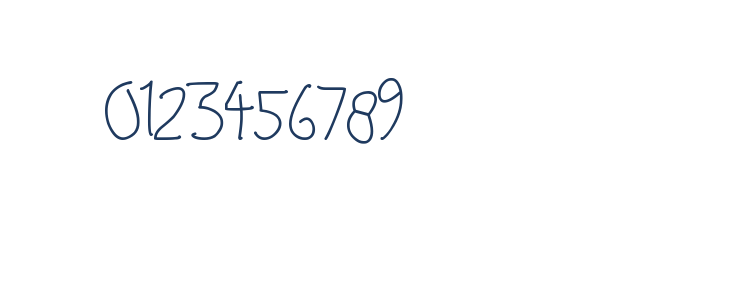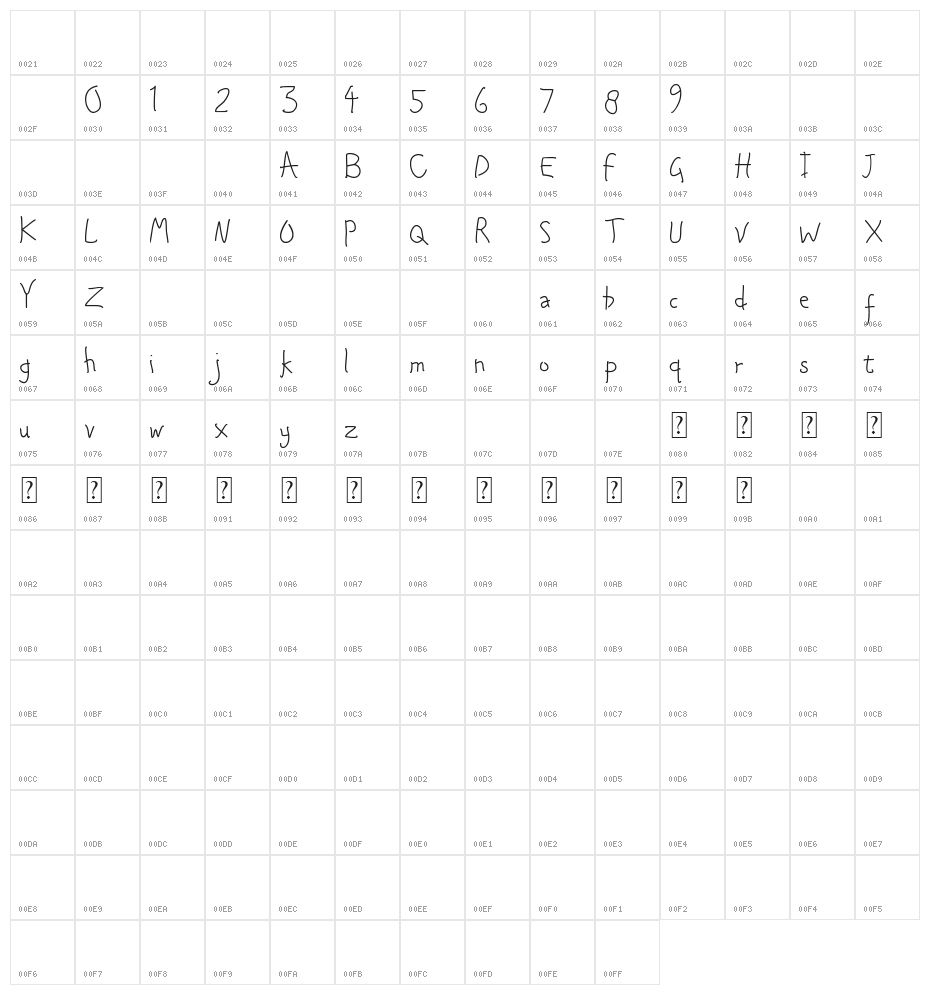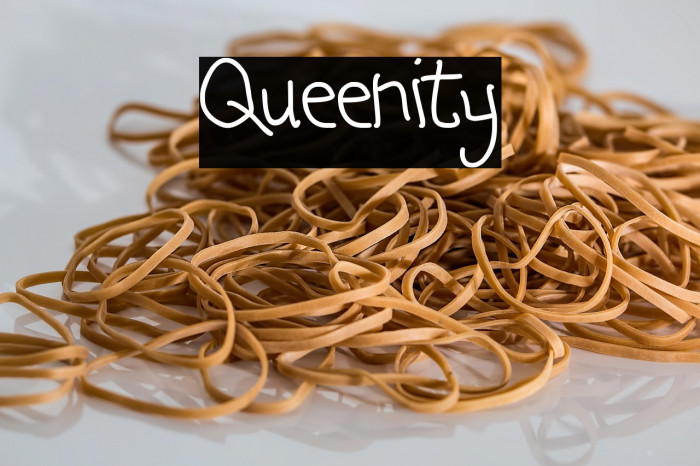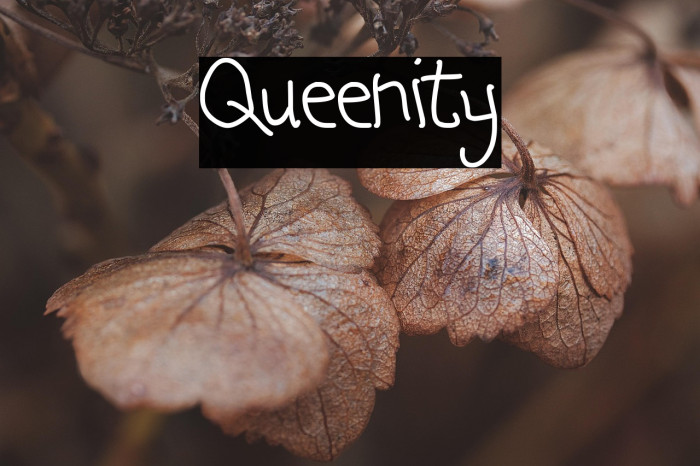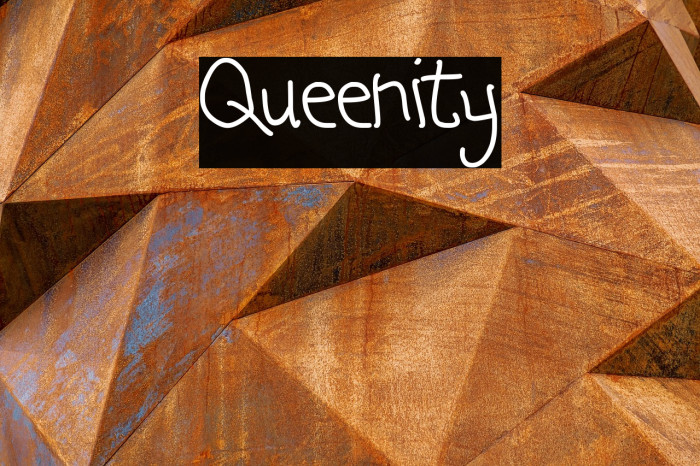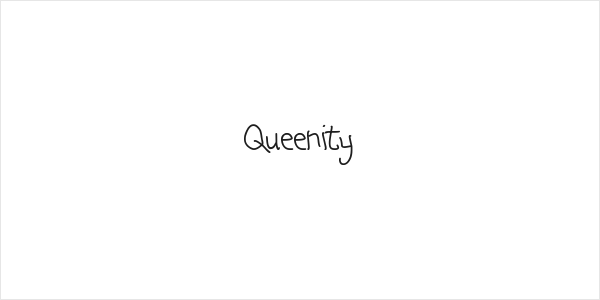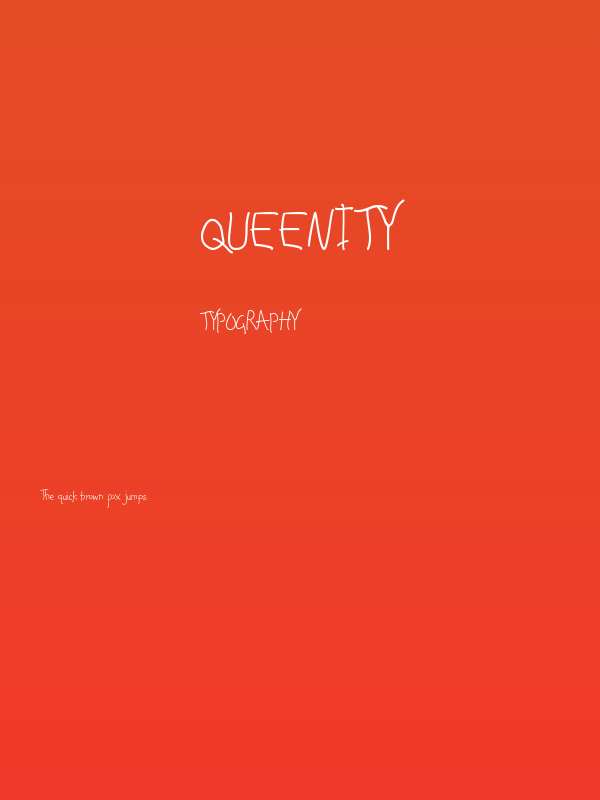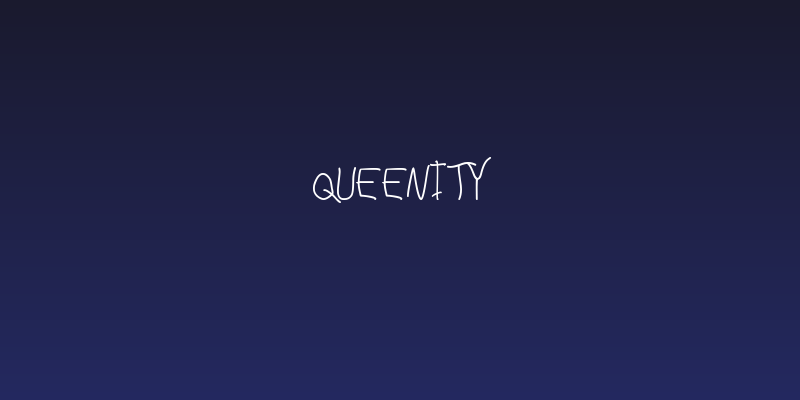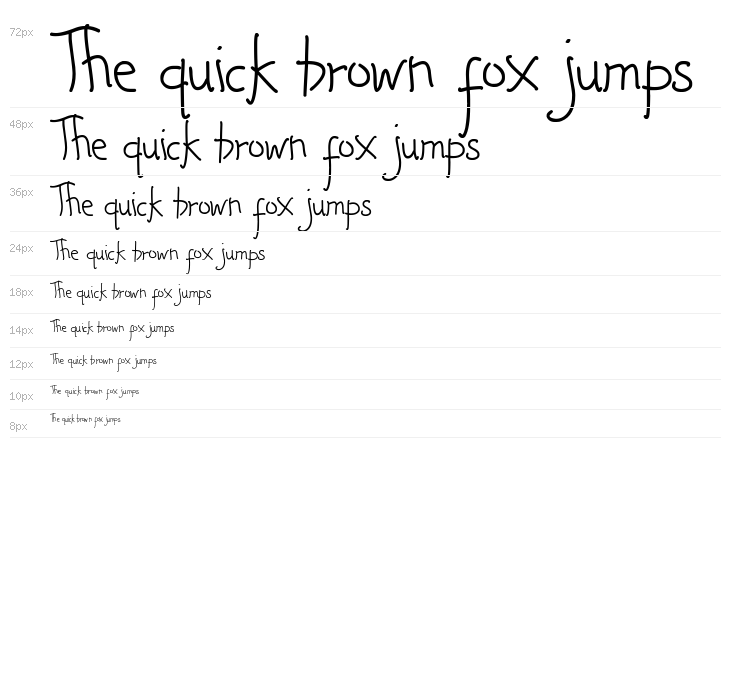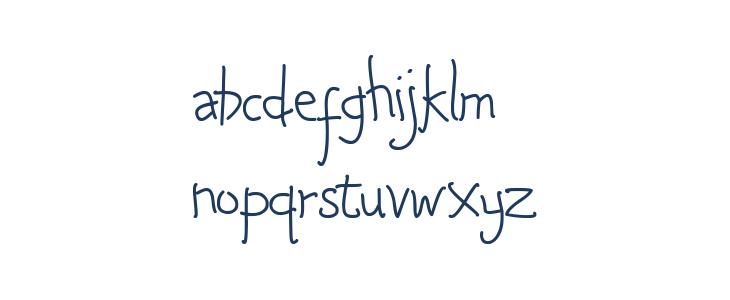
Queenity Font
Queenity Description
This font exudes a playful and casual handwritten style, characterized by its irregular strokes and whimsical appearance. The letters are slightly uneven, giving it a natural and organic feel, reminiscent of a personal note or a casual doodle. The uppercase and lowercase letters maintain a consistent style, with rounded edges and a slight tilt that adds to its informal charm. Numbers and special characters are crafted with the same playful touch, ensuring a cohesive look across all characters. This font is perfect for projects that require a personal touch, such as greeting cards, invitations, or children's book illustrations. Its unique style makes it stand out, adding a sense of warmth and friendliness to any text.